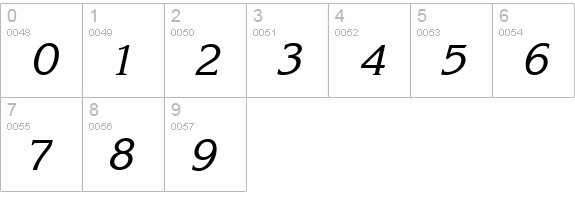
Keira Italic is a distinctive, italic variant in the Keira typeface family \xE2\x80\x94 well suited to design and typography projects.
Keira Italic font is a stunning and elegant typeface that exudes sophistication and grace. Its beautifully slanted design adds a touch of modernity and style to any project or design. The delicate curves and precisely crafted letterforms of Keira Italic make it a perfect choice for elegant invitations, branding materials, and editorial designs. This font offers a unique and eye-catching alternative to traditional serif fonts. Its italicized strokes give it a sense of movement and fluidity, making it ideal for conveying a sense of dynamism and energy. Whether used for headings, subheadings, or body text, Keira Italic will captivate readers and leave a lasting impression. One of the best things about Keira Italic font is that it is free to download. You can easily access this exquisite typeface at FontsMarket.com, where it is readily available for anyone seeking to elevate their design projects. This generous offering allows designers and creatives to add a touch of elegance to their work without breaking the bank. So why wait? Enhance your designs with Keira Italic font, and let its timeless beauty and versatility elevate your creative endeavors. Download it now for free at FontsMarket.com and unlock a world of possibilities for your next project.